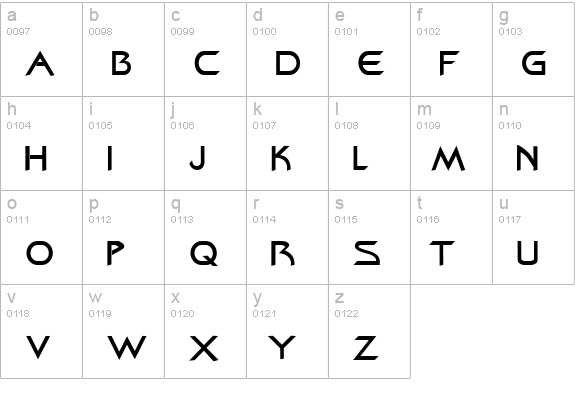
Bajoran Regular Font Details
Bajoran Regular is the standard, neutral variant in the Bajoran typeface family \xE2\x80\x94 well suited to general body text, paragraphs, and standard typographic work.
Bajoran Regular font is a beautiful and versatile typeface that exudes a sense of elegance and sophistication. Its classic yet modern design makes it suitable for a wide range of design projects, including branding, advertising, packaging, and more. With its clean lines and balanced proportions, Bajoran Regular font is easy to read, ensuring optimal legibility across various mediums. The carefully crafted letterforms exhibit a perfect balance between simplicity and intricacy, making it a versatile choice for both headings and body text. One of the standout features of Bajoran Regular font is its wide range of characters and glyphs, which include multiple language support. This ensures that you can use the font in different languages without compromising on aesthetics or consistency. What truly sets Bajoran Regular font apart is its availability as a free download on FontsMarket.com. This means that anyone can access and enjoy this stunning typeface without any cost. Whether you're a professional designer or an aspiring creative, Bajoran Regular font offers you the opportunity to enhance your projects with a high-quality font that is freely available. So, why wait? Don't miss the chance to elevate your designs with Bajoran Regular font. Download it now for free at FontsMarket.com and experience the power of this exceptional typeface in your next project.